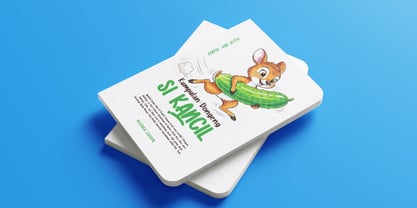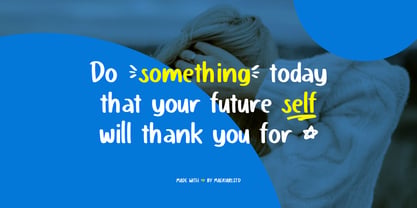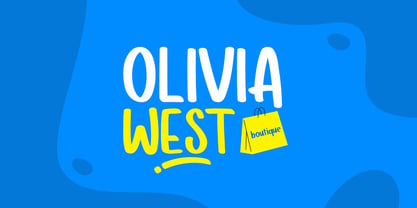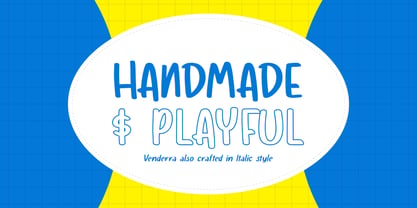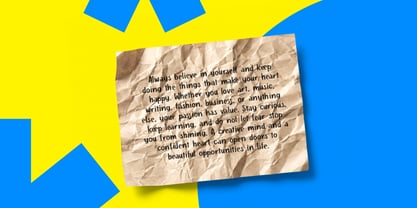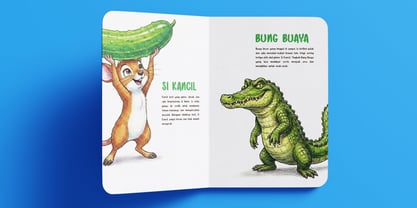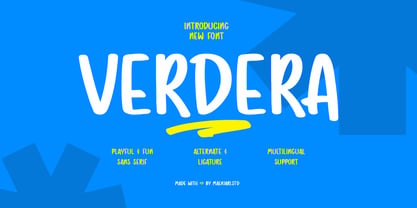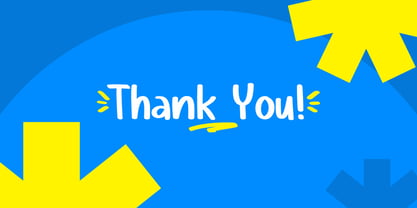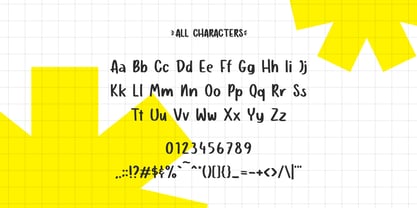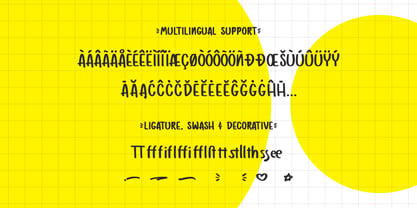
Verdera
by Maenjari Std
The Verdera Font Family was designed by Maenjari and published by Maenjari Std. Verdera contains 4 styles and family package options. More about this family
Verdera is a playful handwritten sans serif font that infuses warmth, personality, and creativity into every project. With its tall letterforms, natural strokes, and a slightly imperfect handmade feel, Verdera delivers an authentic and friendly appearance that stands out instantly. This font is perfect for a variety of applications, including branding, logo design, packaging, social media graphics, posters, children’s books, quotes, café menus, handmade products, and creative advertising. It excels in both digital and print formats, making it versatile for modern lifestyle brands while maintaining a fun and approachable vibe. What sets Verdera apart is its unique balance between simplicity and expressive character. The font offers alternate characters, ligatures, decorative swashes, and multilingual support, providing designers with the flexibility to create eye-catching typography that feels custom-made. Whether you need bold headlines, cheerful packaging, or playful editorial layouts, Verdera adds energy and charm without sacrificing readability. The handwritten style pairs beautifully with minimalist sans serifs, modern scripts, or clean geometric fonts, allowing for layered and contemporary typography combinations. Designed with creativity in mind, Verdera is ideal for projects requiring a youthful, friendly, and handcrafted touch. From boutique branding to children’s products and inspirational content, this font enhances your designs, making them feel more human, expressive, and memorable.
Designers: Maenjari
Foundry: Maenjari Std